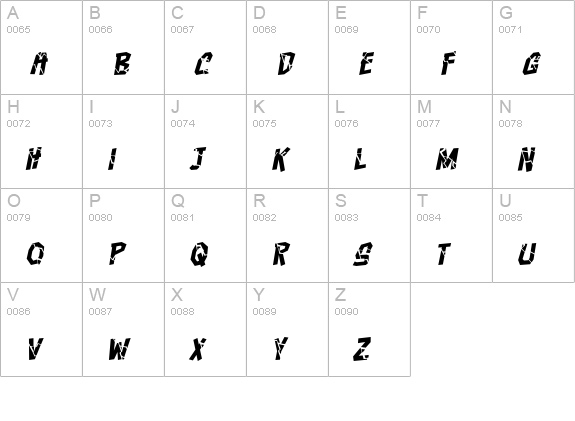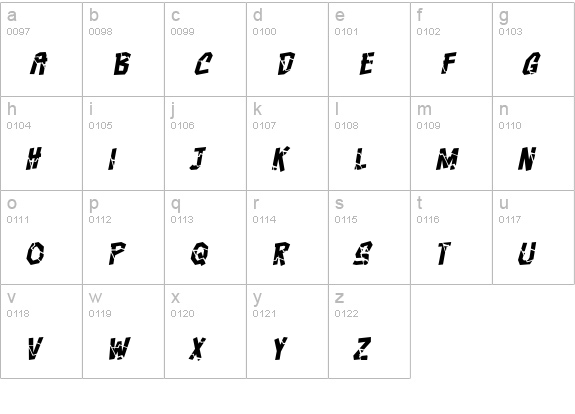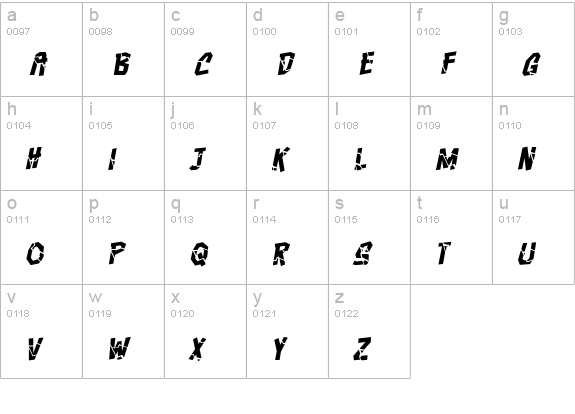
Crashcourse BB Italic Font Details
Crashcourse BB Italic is a distinctive, italic variant in the Crashcourse typeface family \xE2\x80\x94 well suited to design and typography projects.
Crashcourse BB Italic font is a dynamic and stylish typeface that exudes modernity and creativity. With its slanted and bold letterforms, this font is perfect for adding a touch of flair to any design project. Whether you are creating a poster, logo, or website, Crashcourse BB Italic font will make your text stand out and grab attention. The best part? It's completely free! You can easily download Crashcourse BB Italic font at FontsMarket.com without any cost. This makes it a fantastic choice for designers, students, and anyone looking to enhance their work with a unique and eye-catching font. Don't miss out on the opportunity to elevate your designs with Crashcourse BB Italic font. Download it for free today and see the difference it can make in your projects!